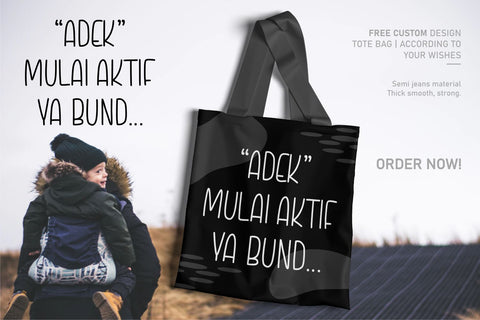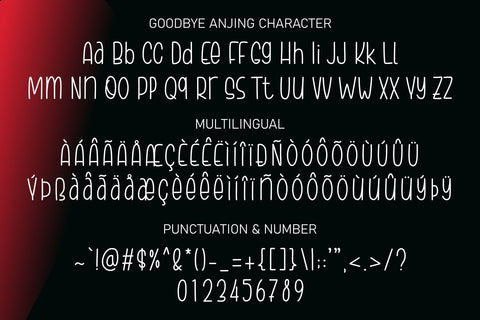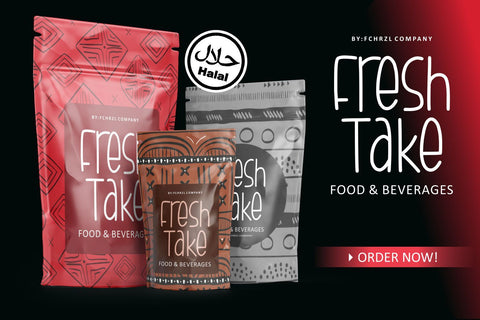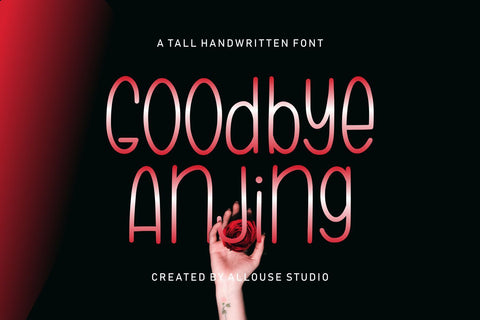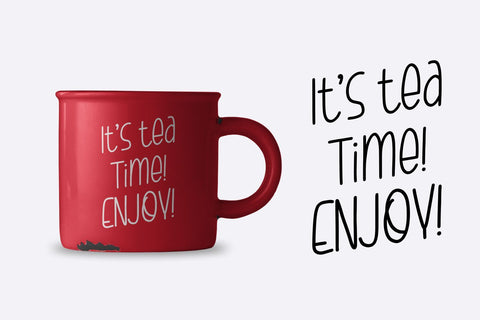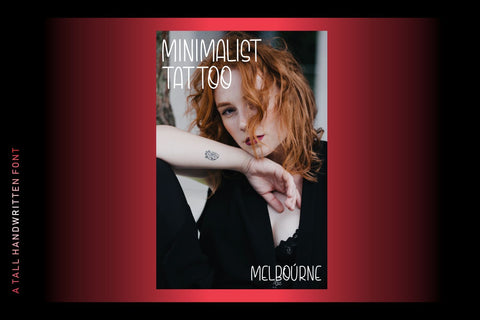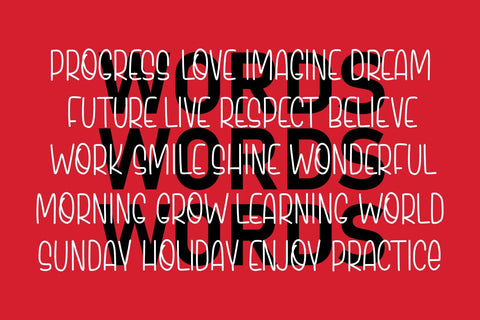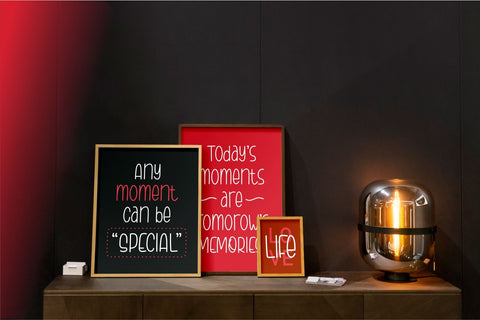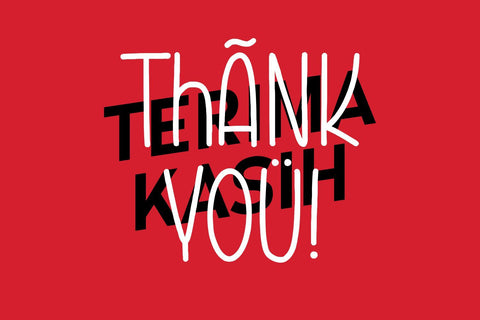
Goodbye Anjing - a Tall Handwritten Font
Proudly Present, Goodbye Anjing.
Goodbye Anjing is a Tall Handwritten Font.
Goodbye Anjing is perfect for product packaging, branding project, megazine, social media, wedding, or just used to express words above the background.